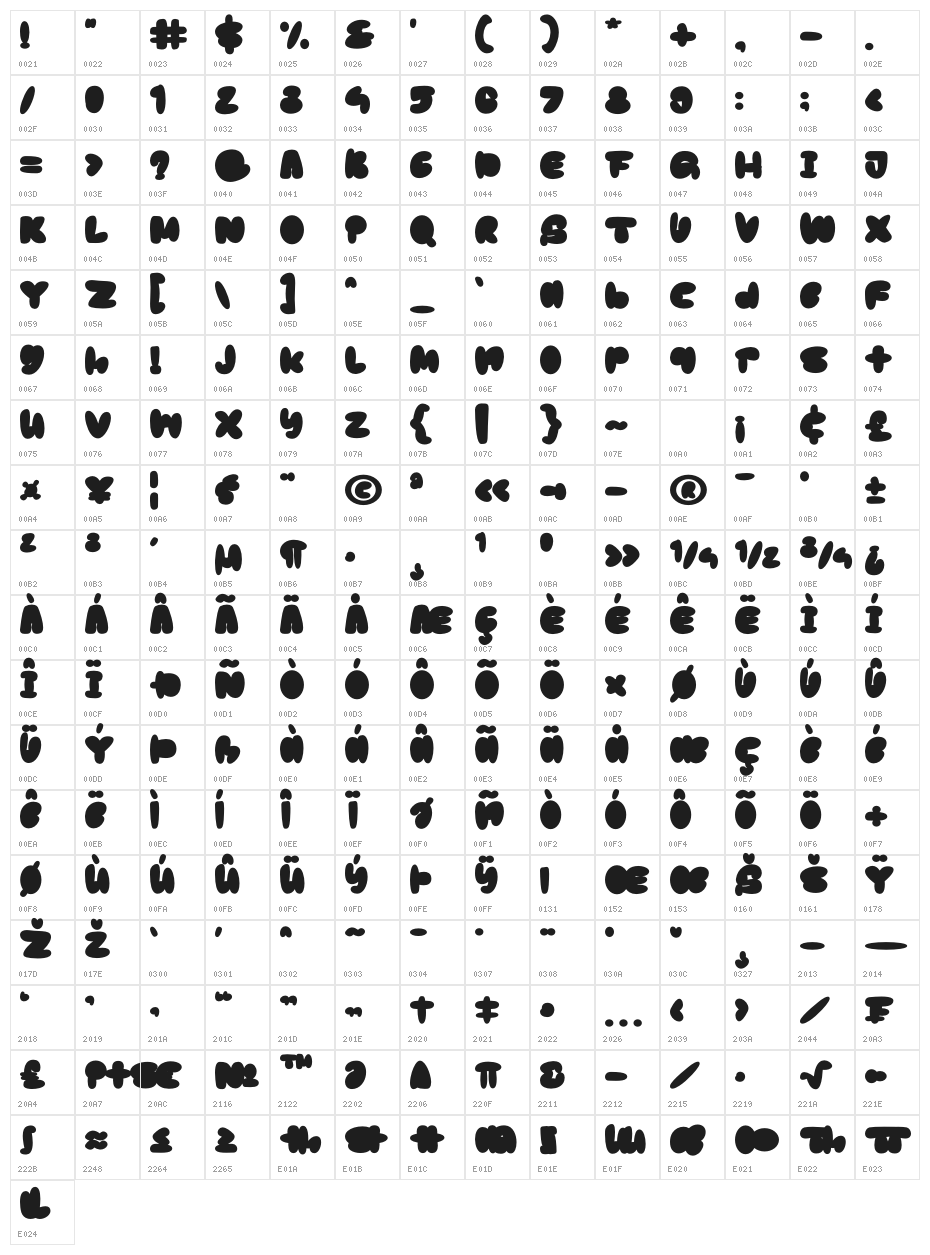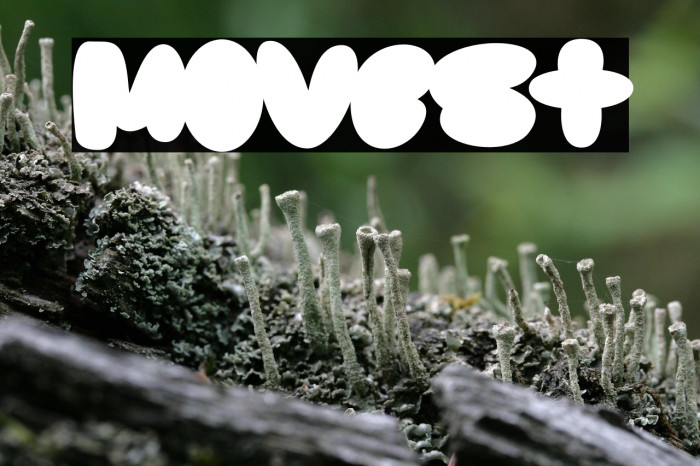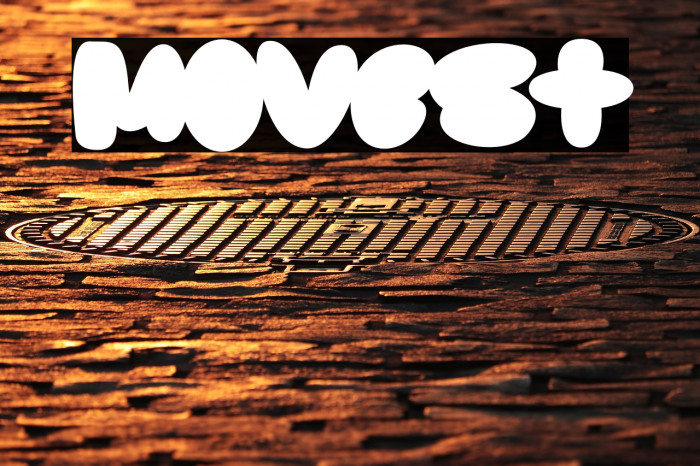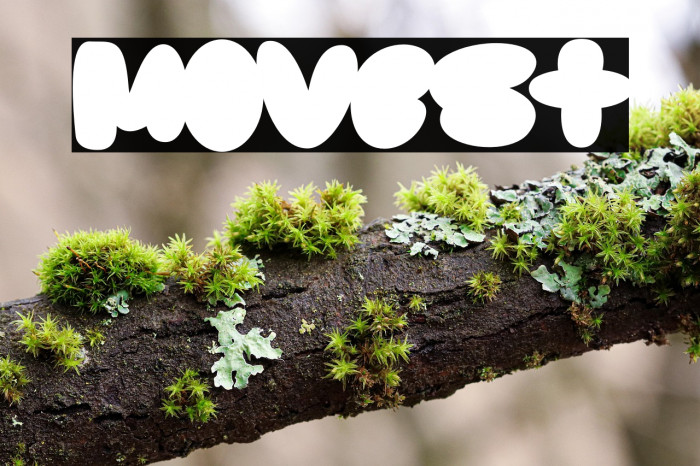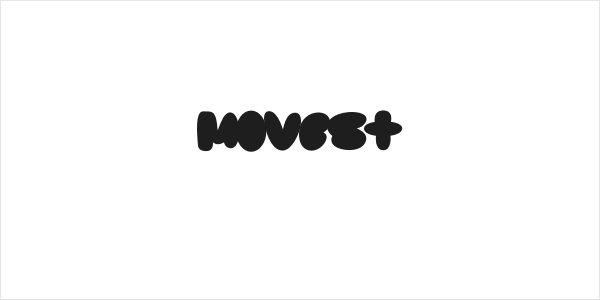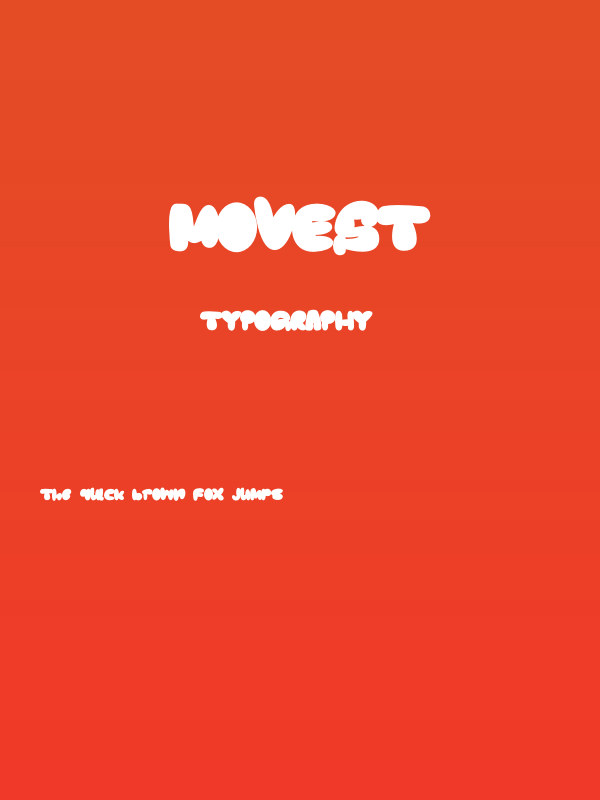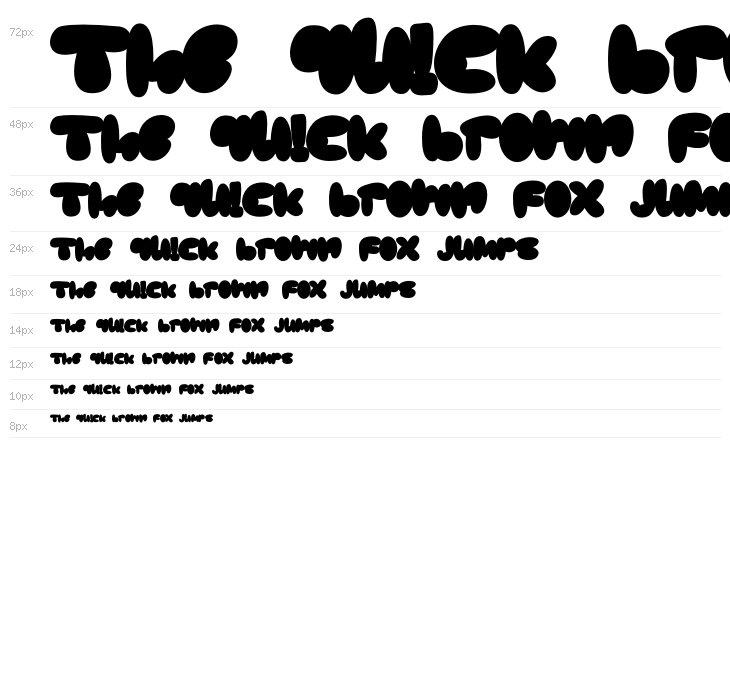
Movest Font
Movest Description
This font features bold, rounded characters with a playful and bubbly appearance. The letters are thick and have a consistent weight throughout, giving them a strong presence on the page. The style is reminiscent of graffiti or street art, with a modern twist that makes it suitable for contemporary designs. The characters are closely spaced, enhancing the compact and cohesive look. This font includes a full set of uppercase and lowercase letters, numbers, and a variety of special characters, making it versatile for different design needs.
| Proposed Projects | Ideal for poster designs, children's book covers, playful branding, and street art-inspired projects. |